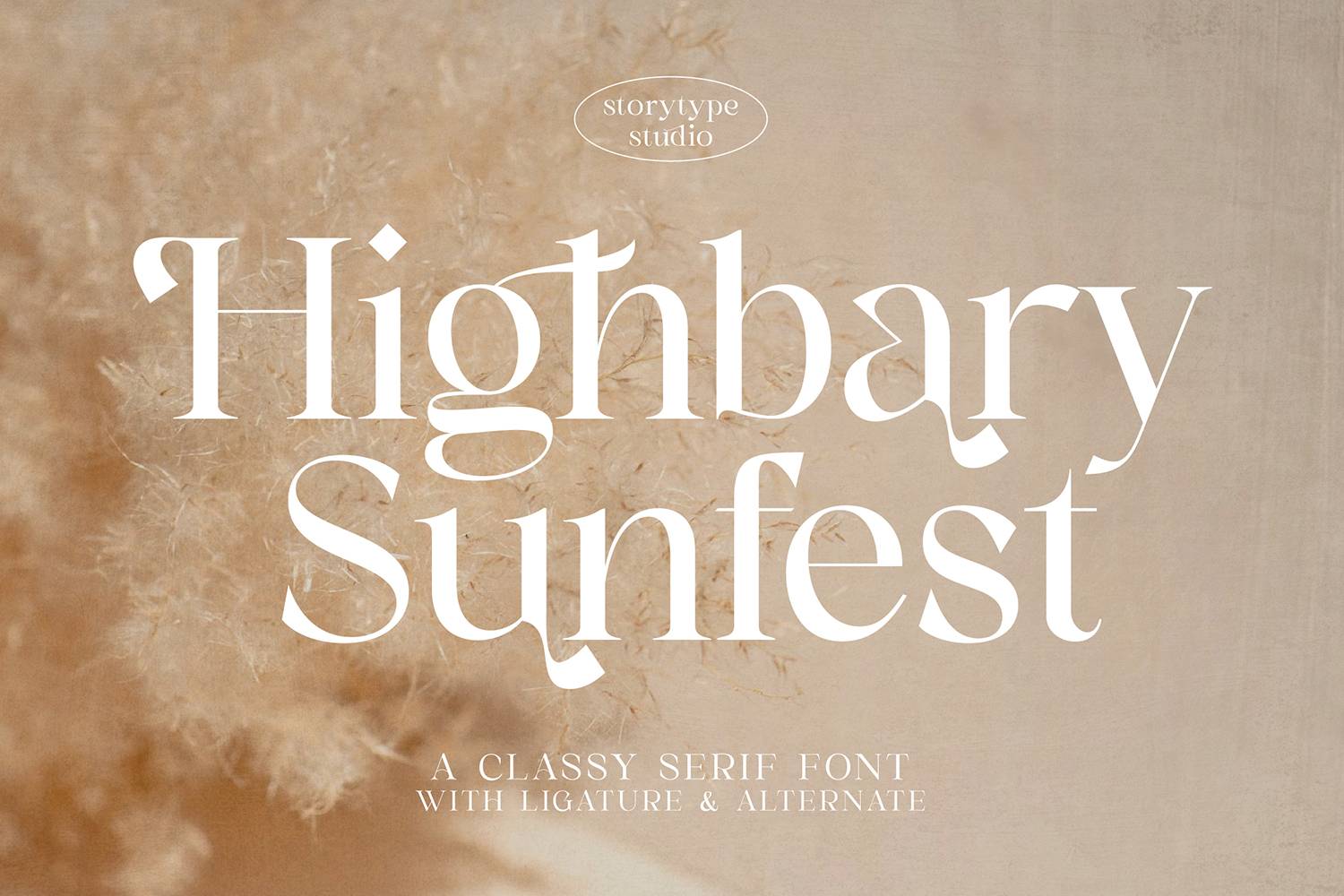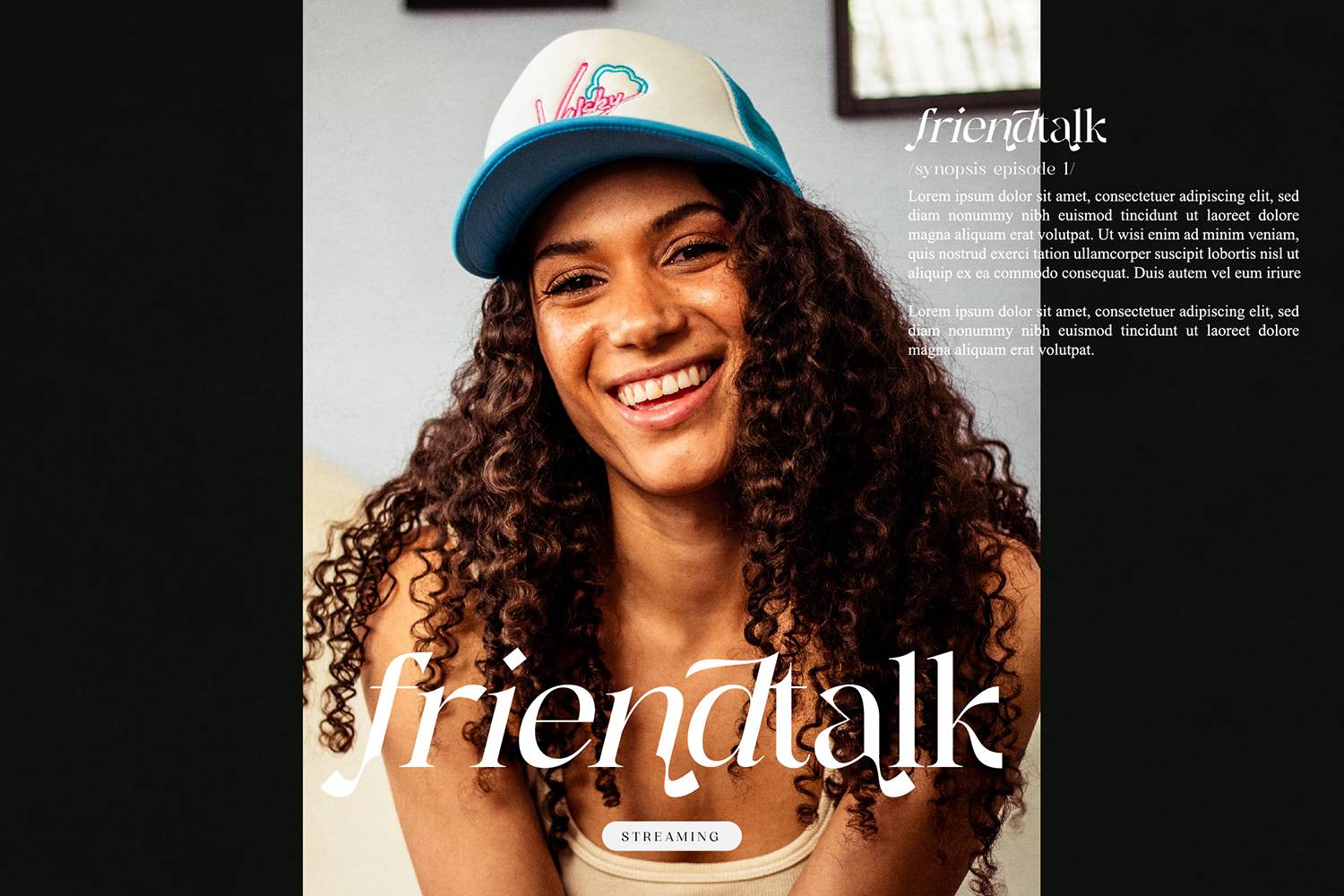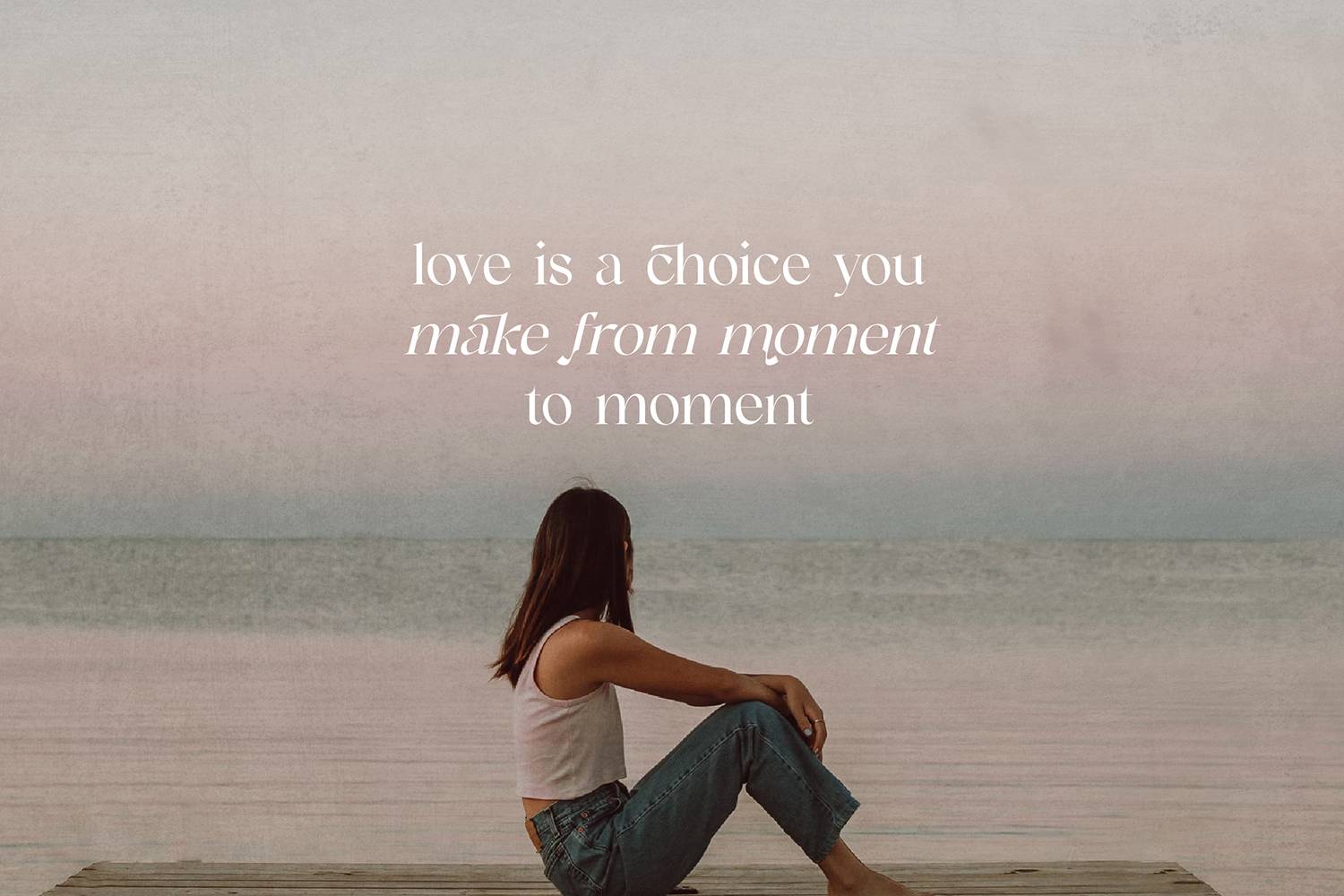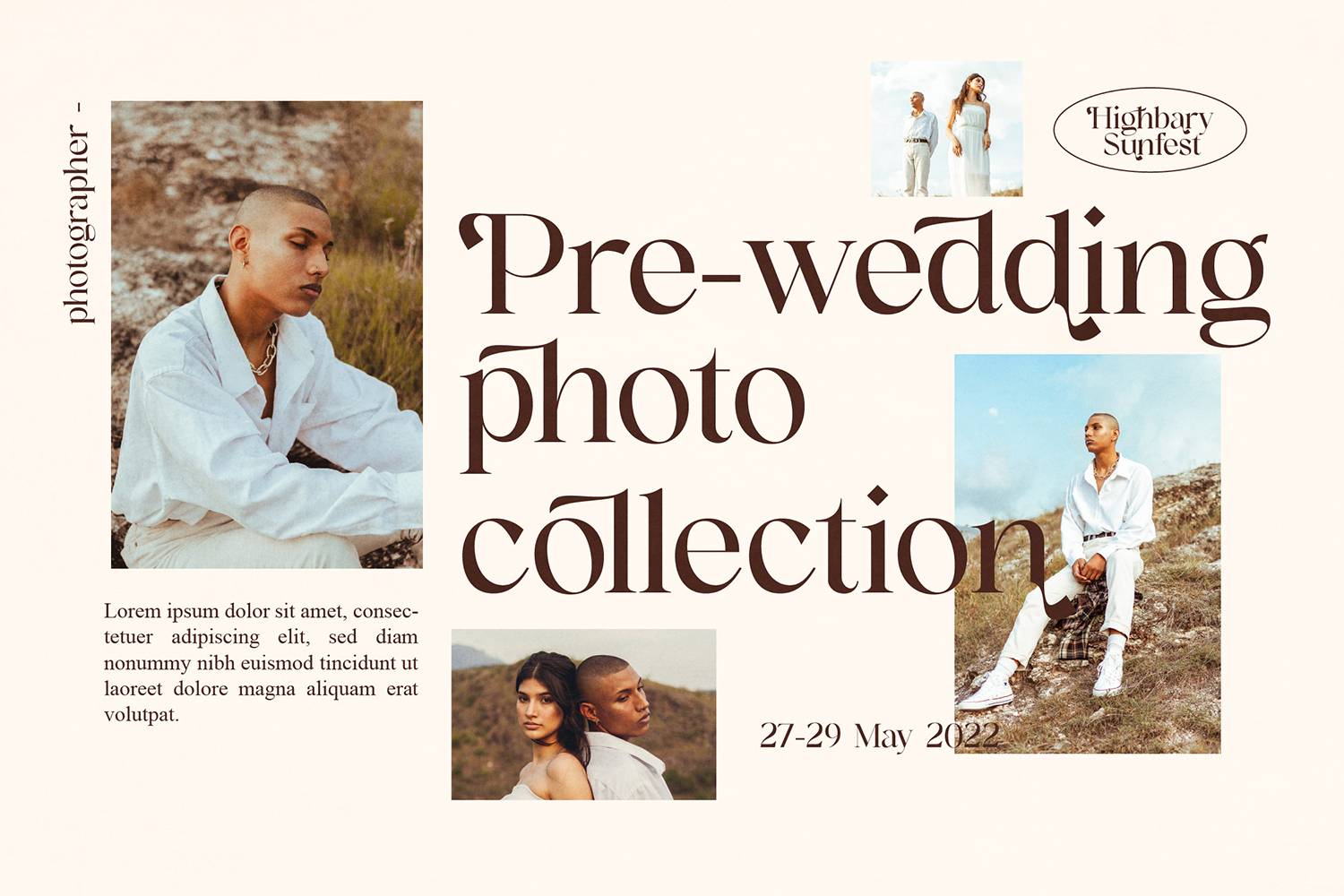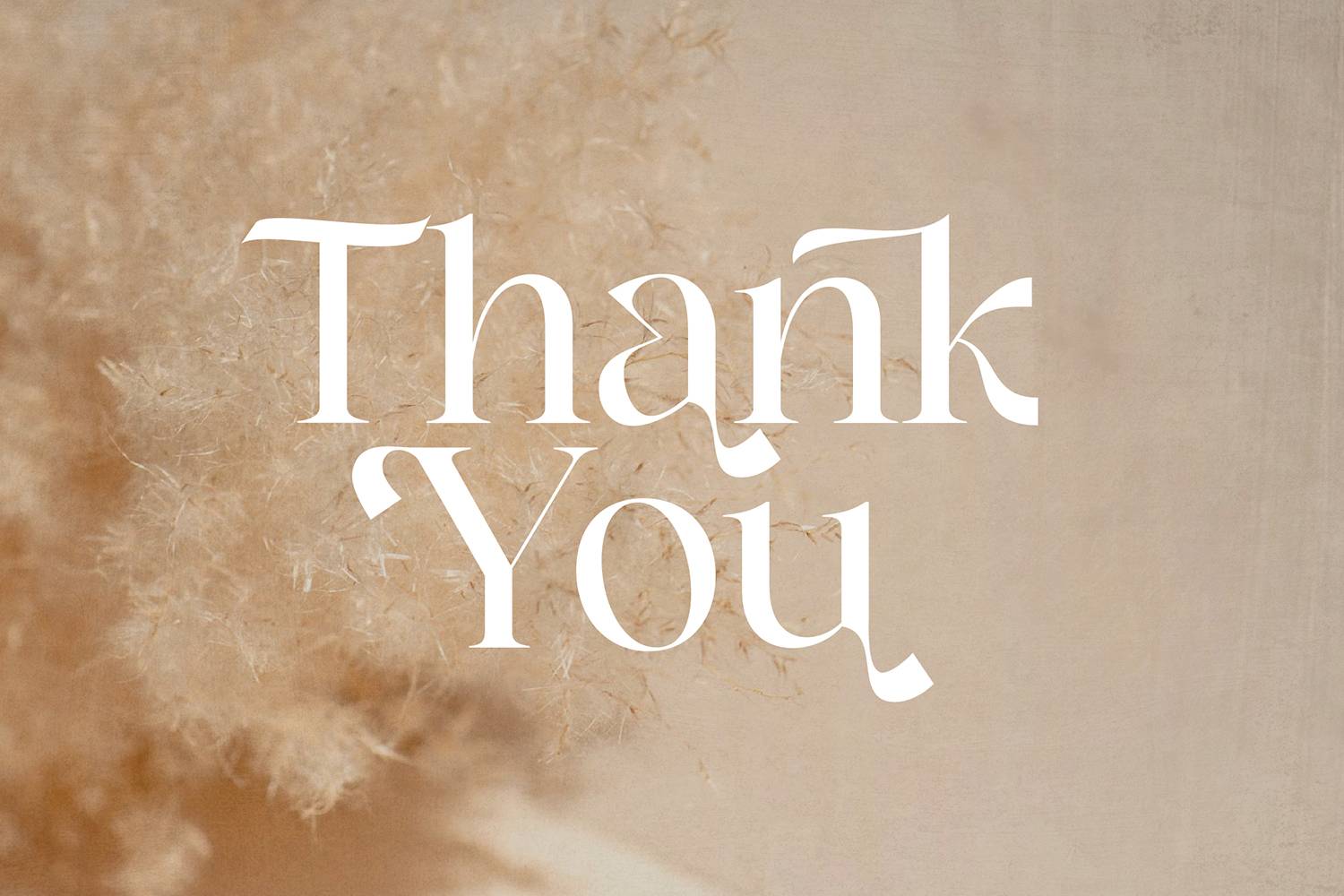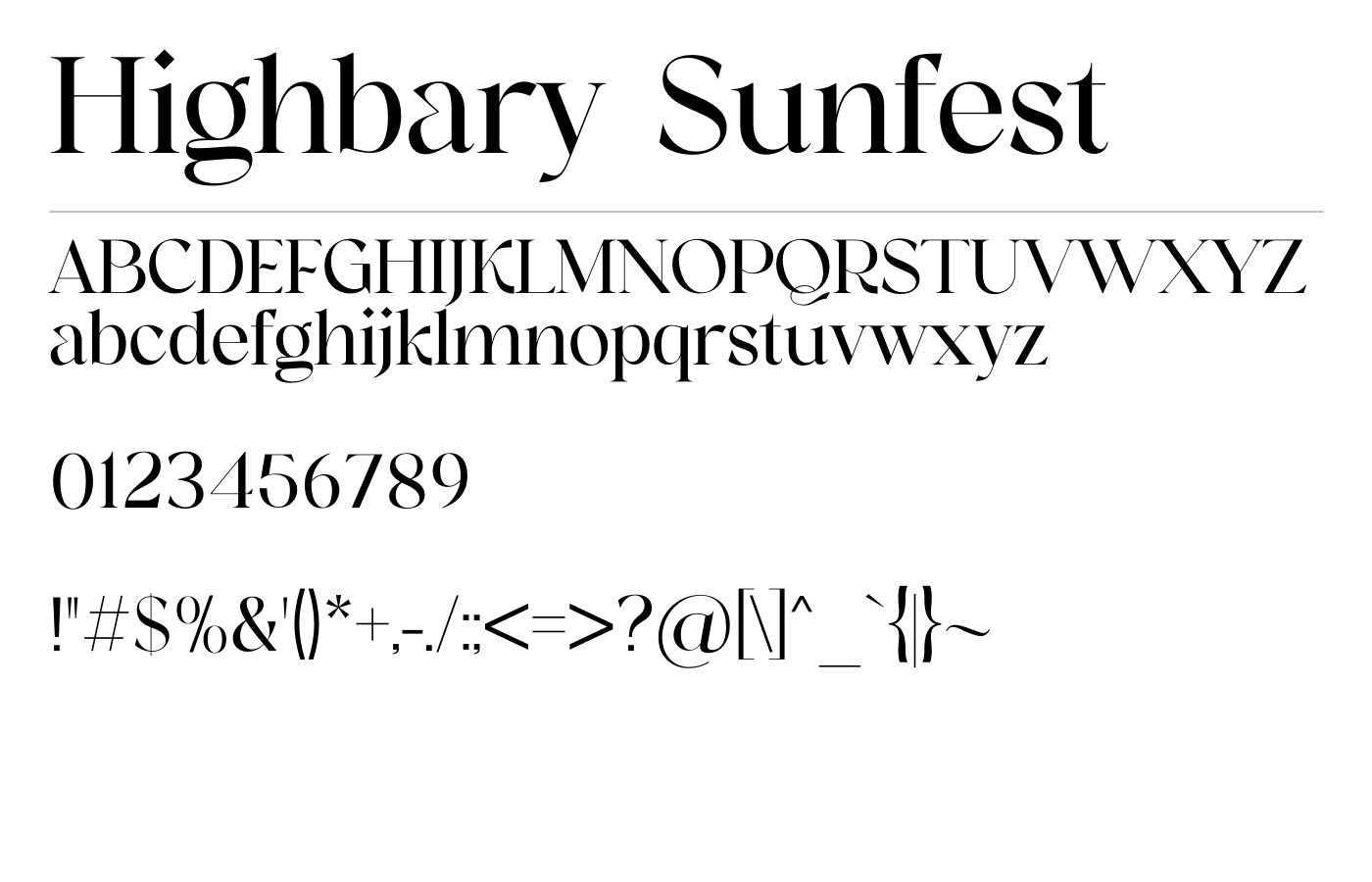
Highbary Sunfest is an elegant serif font with a refined Didone style, featuring high contrast between thick and thin strokes and delicate, sharp serifs. Its tall, narrow letterforms and distinctive details like the curved Q tail and double-story lowercase letters give it a sophisticated, luxurious feel, making it perfect for fashion branding, editorial headlines, and upscale packaging. This font excels in creating a modern yet classic impression that commands attention with grace and style.
Highbary Sunfest Font
About Highbary Sunfest Font